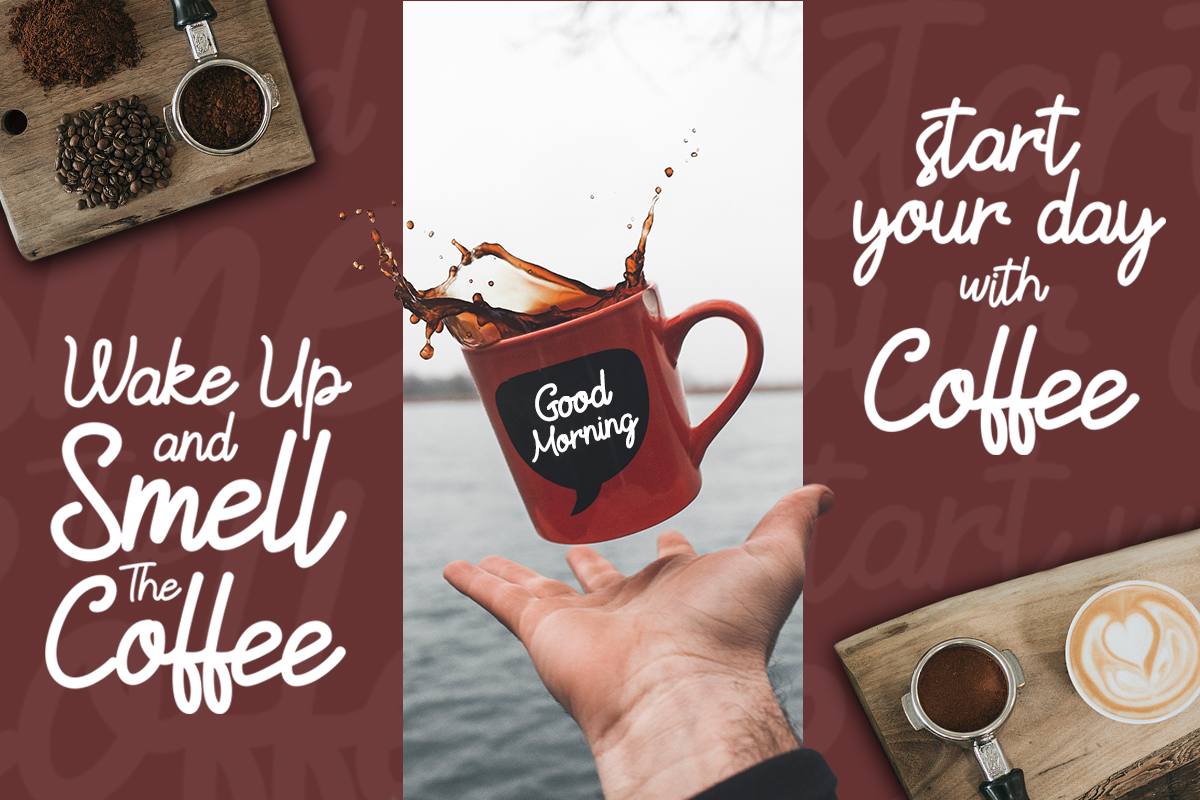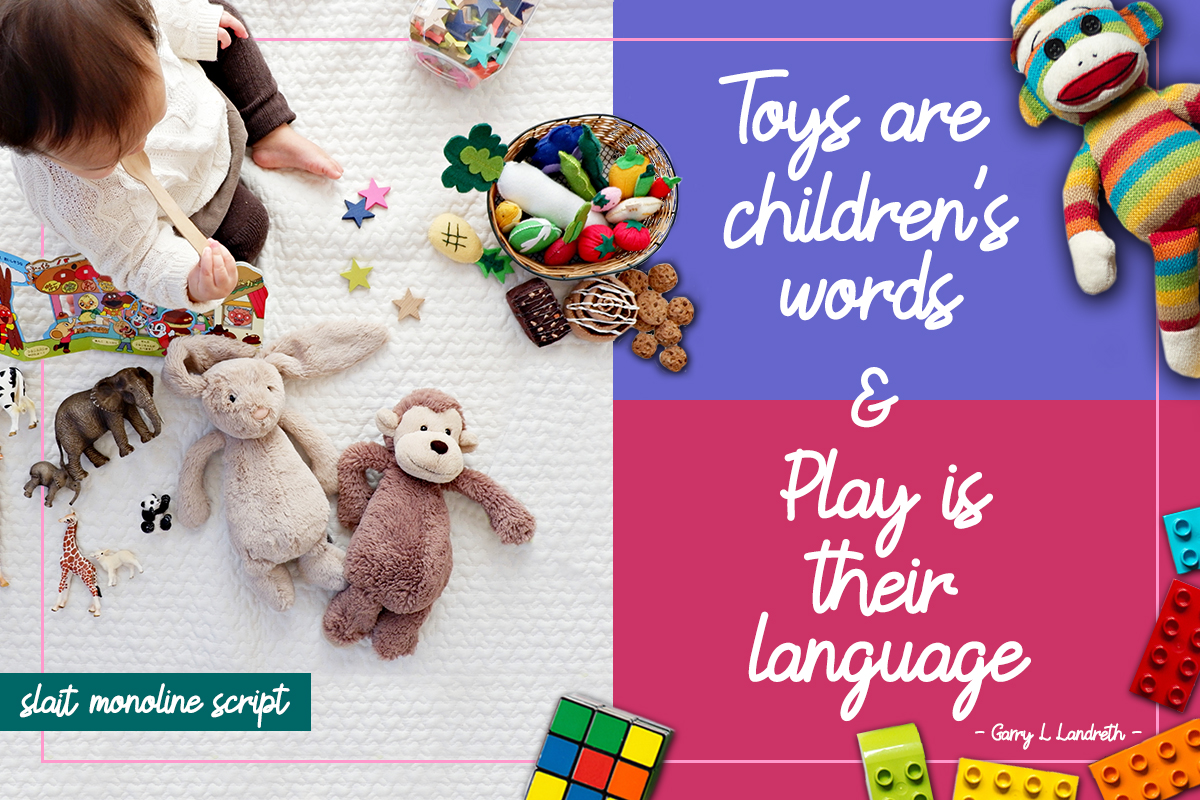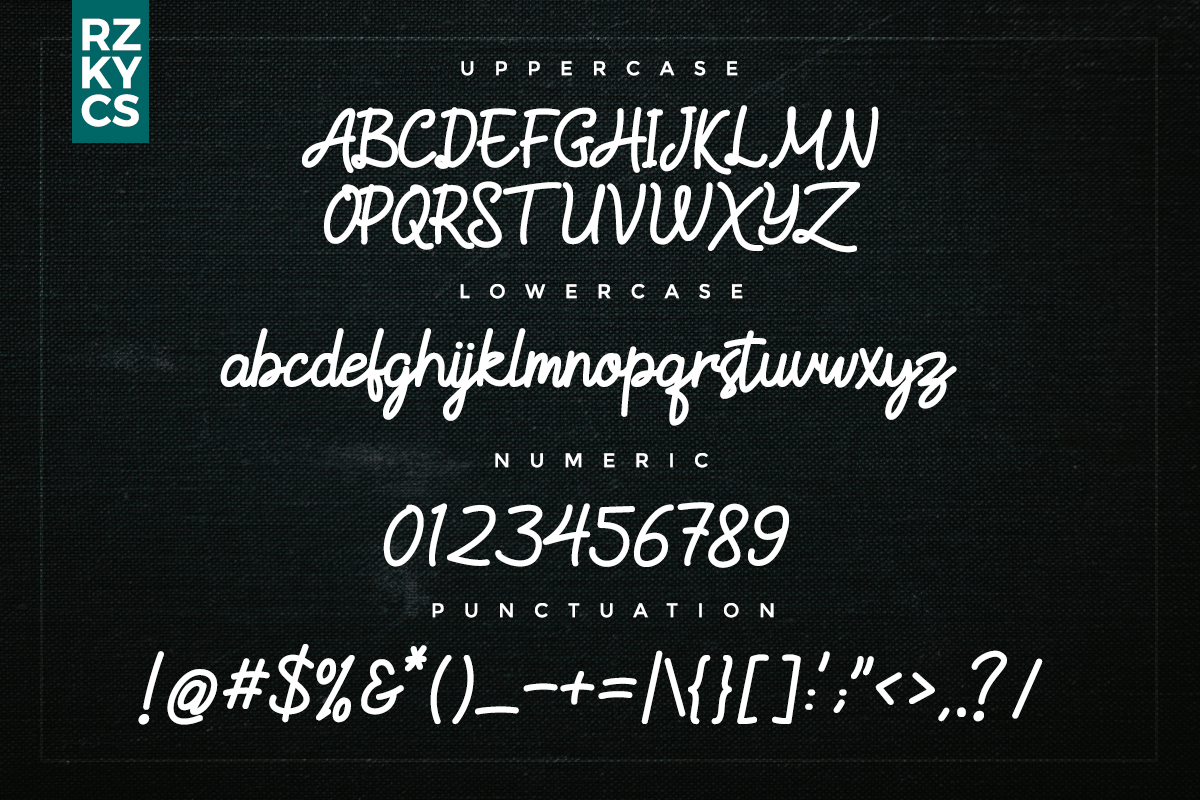
Slait Monoline Script Free Font
Slait Monoline Script Free Font is a modern script. Font with love useful for you who needs a typeface for headline, logotype, special event, travel promo, fashion event, apparel, invitation, branding, packaging, advertising, etc. This typeface comes in uppercase, lowercase, punctuation, numeral, ligatures, and alternate. This free typeface was designed by a talented RZKYย CS. If you like it donโ€™t forget to check out the full version.